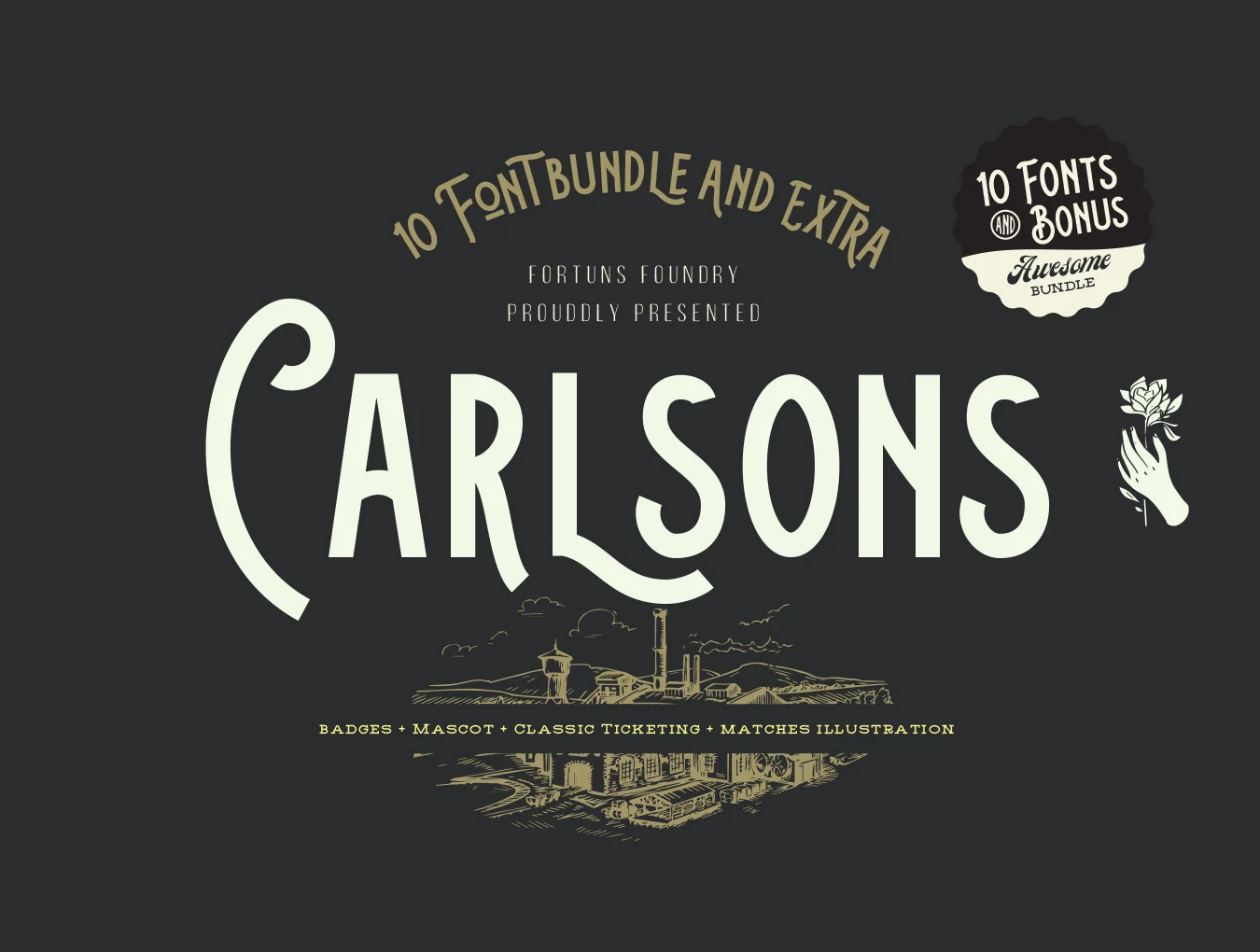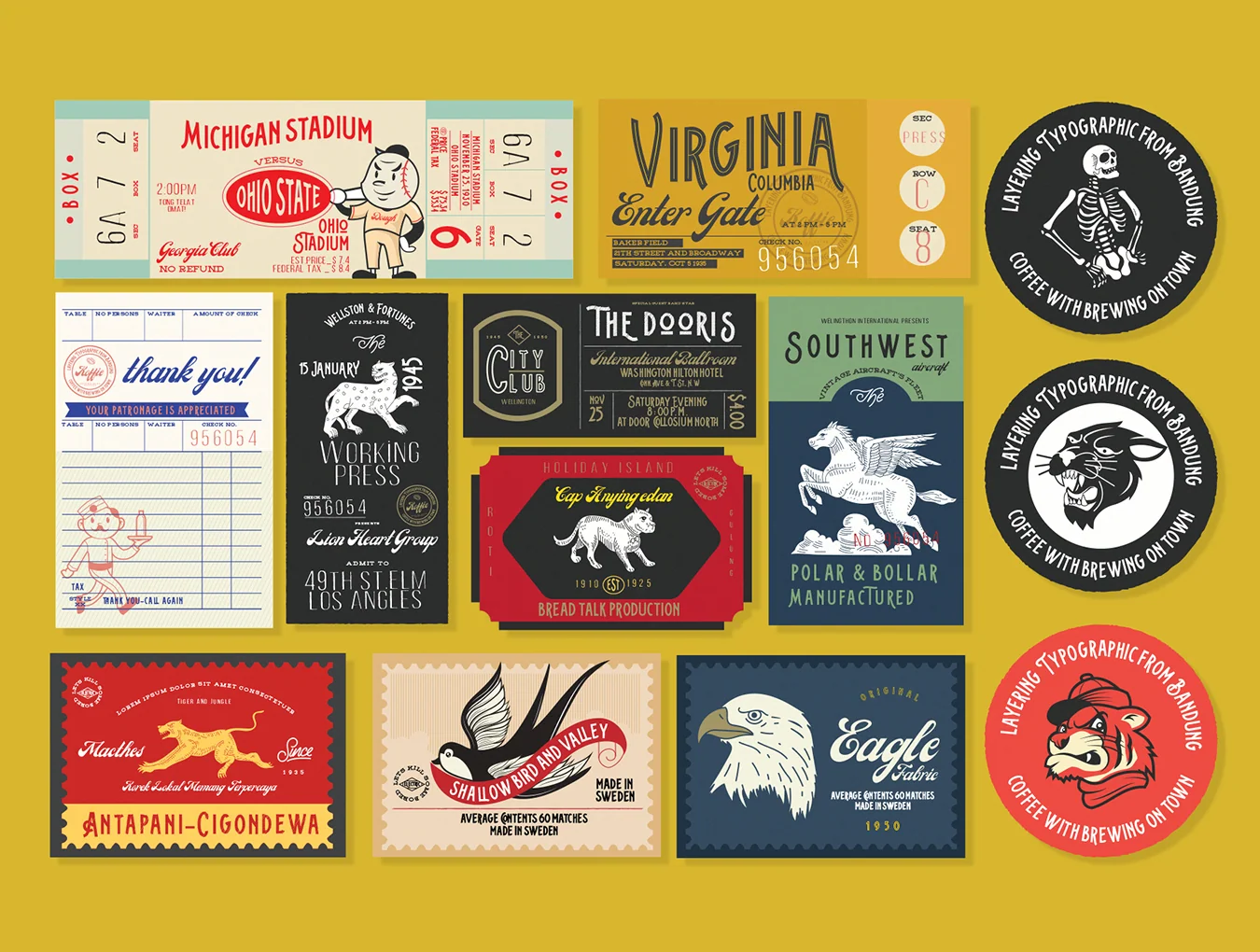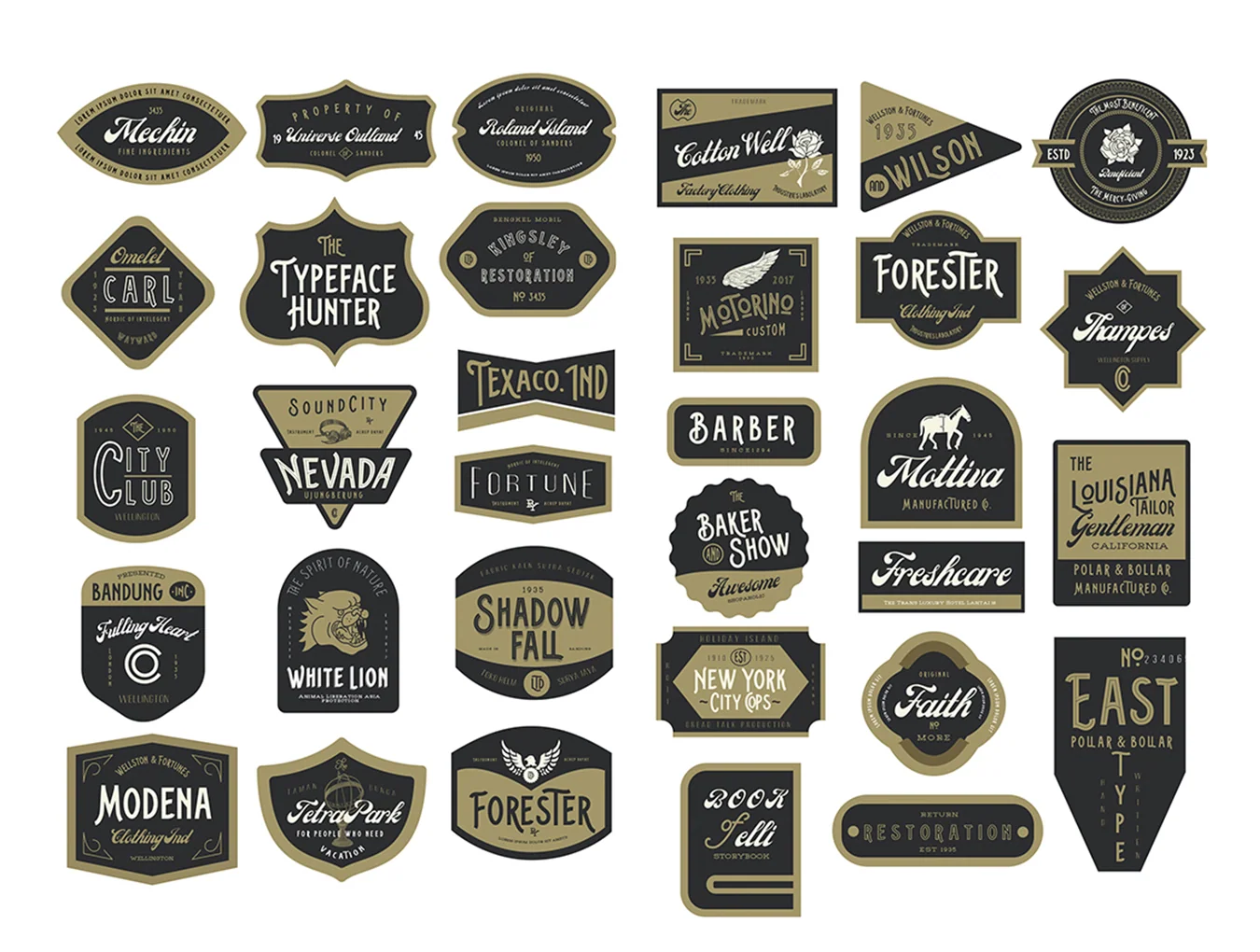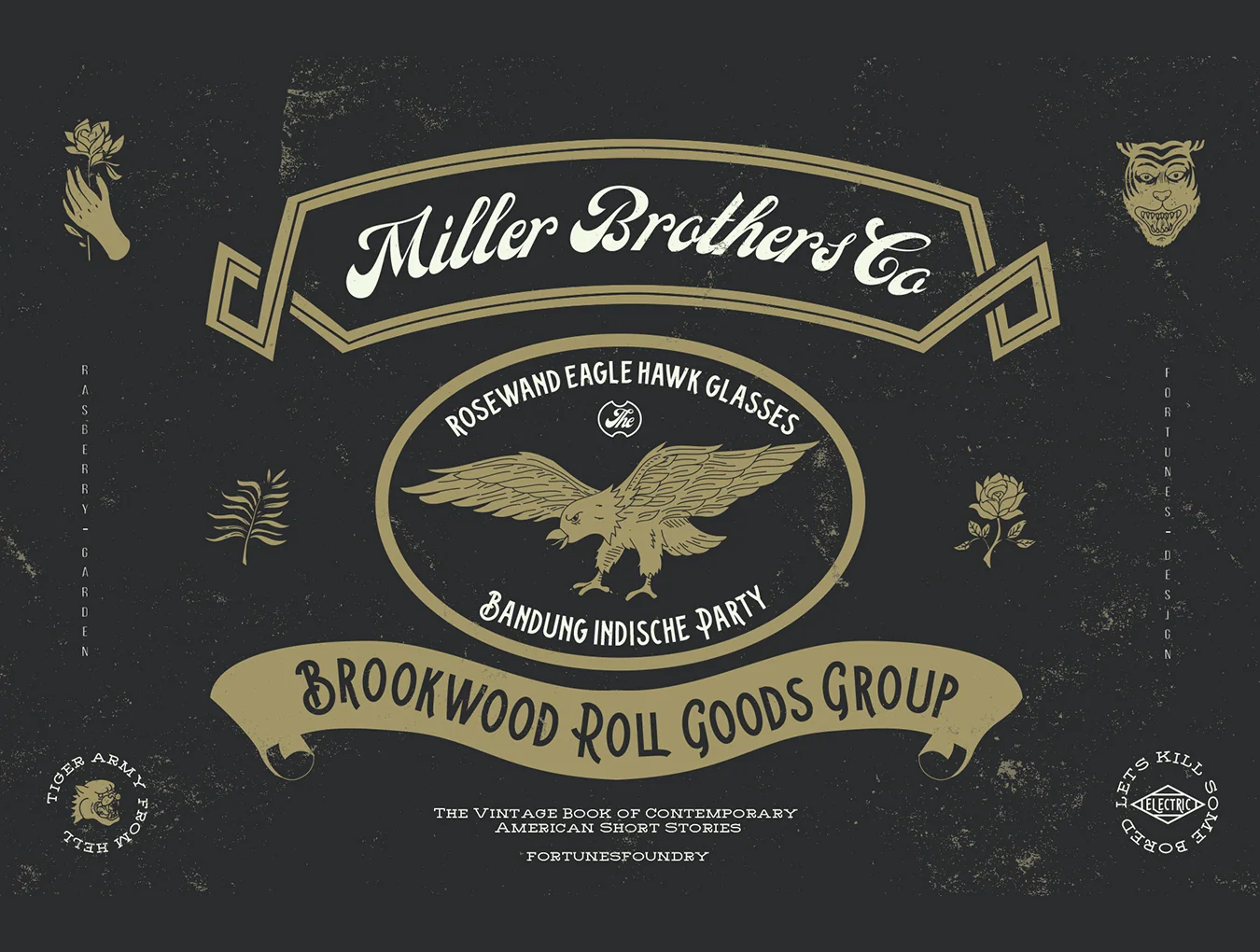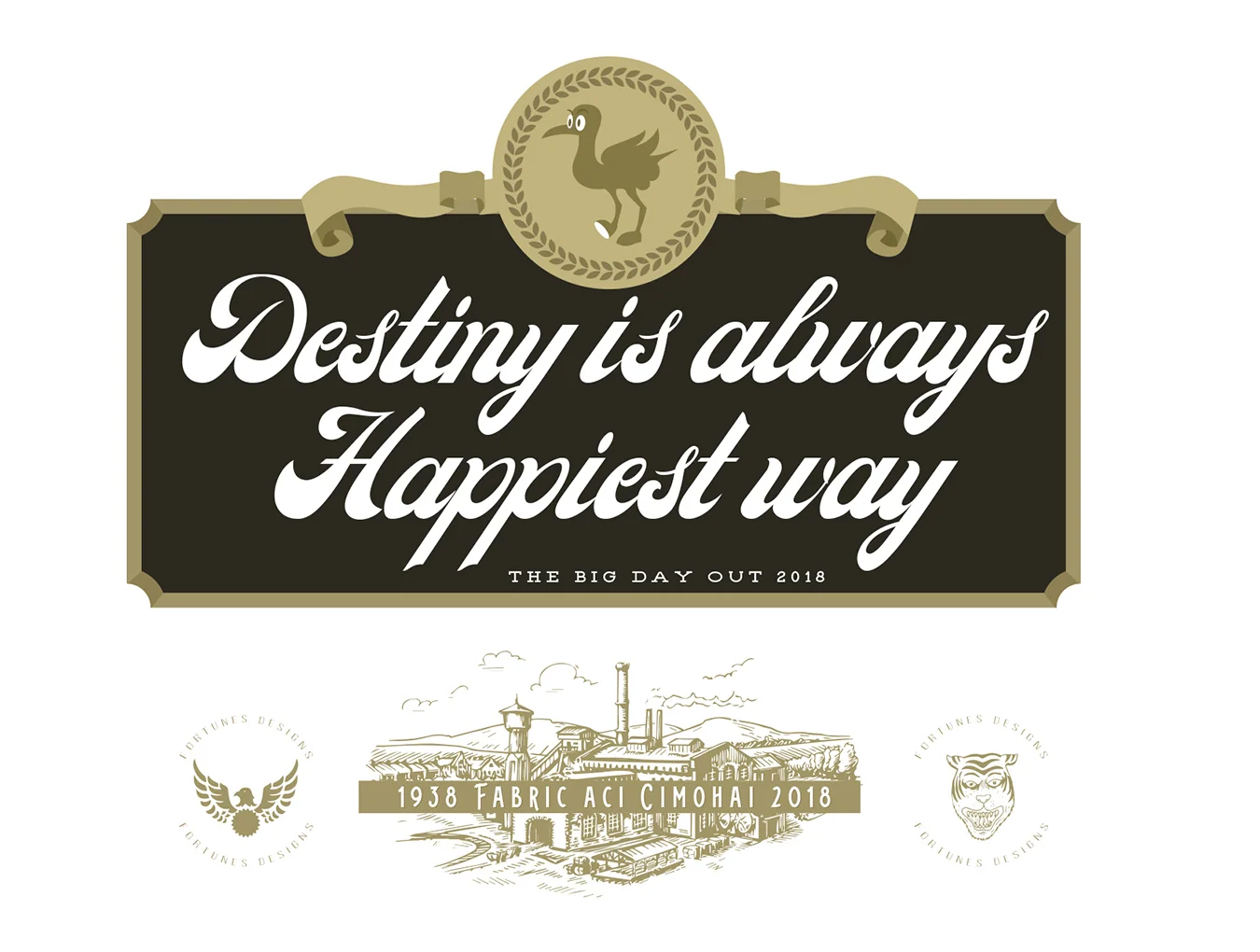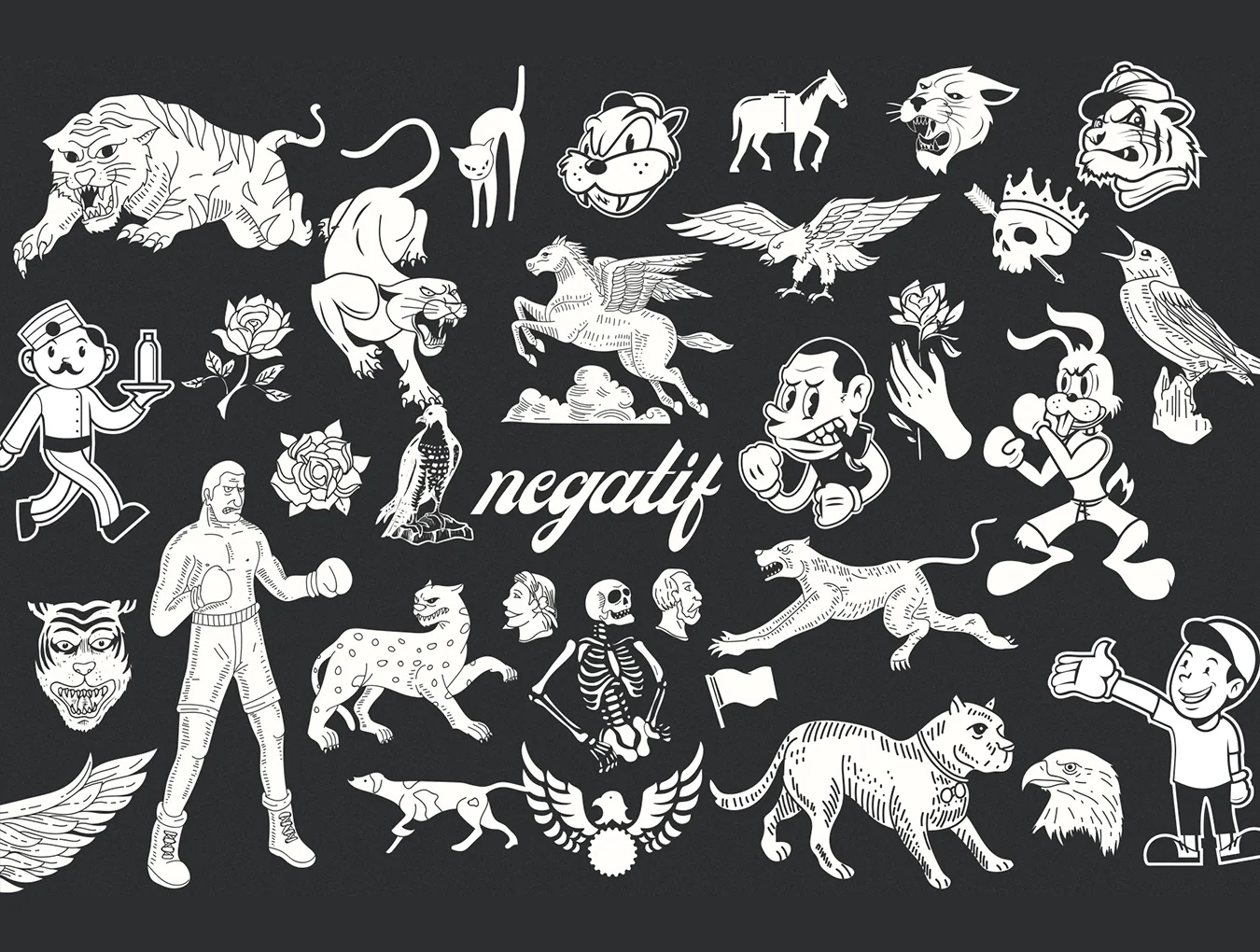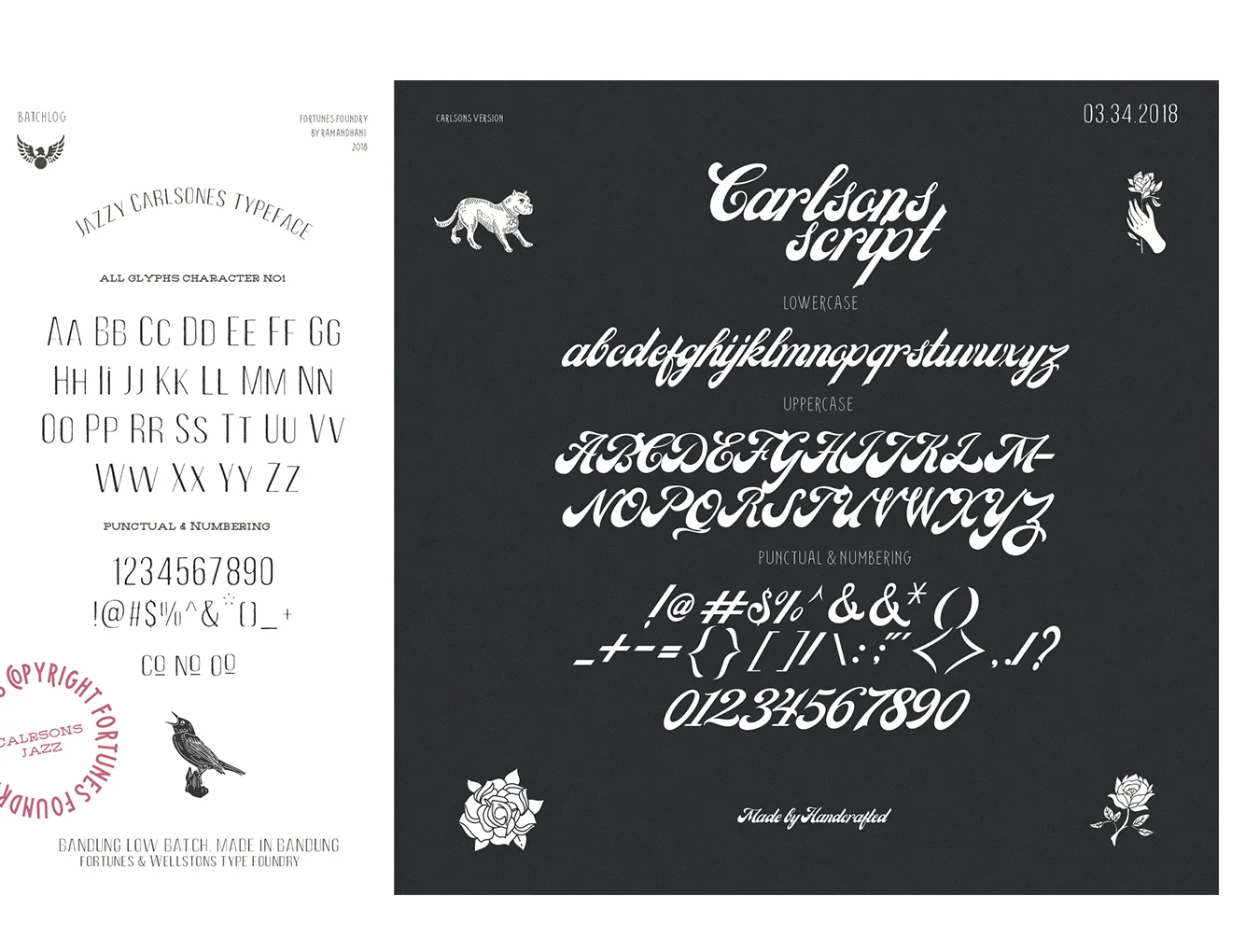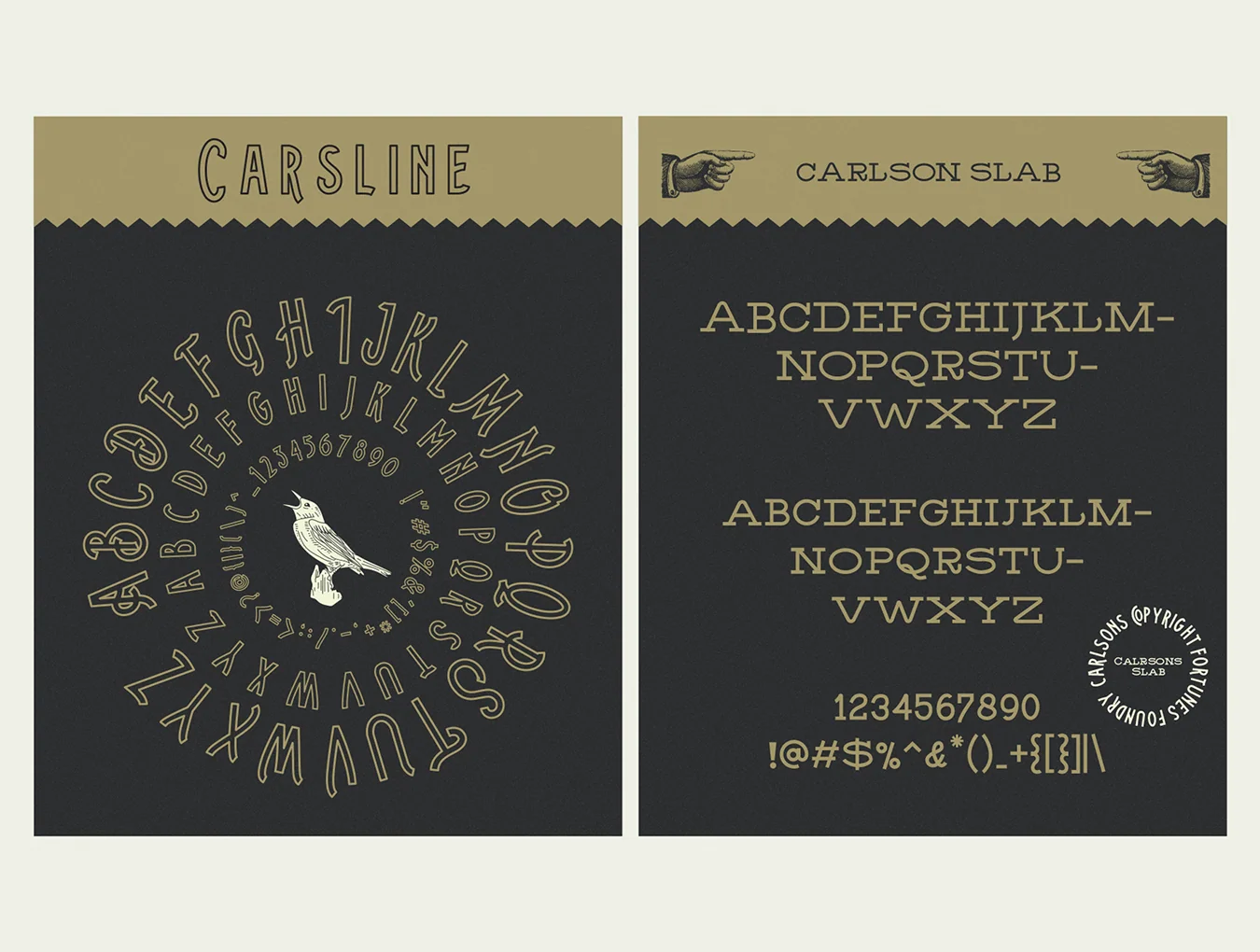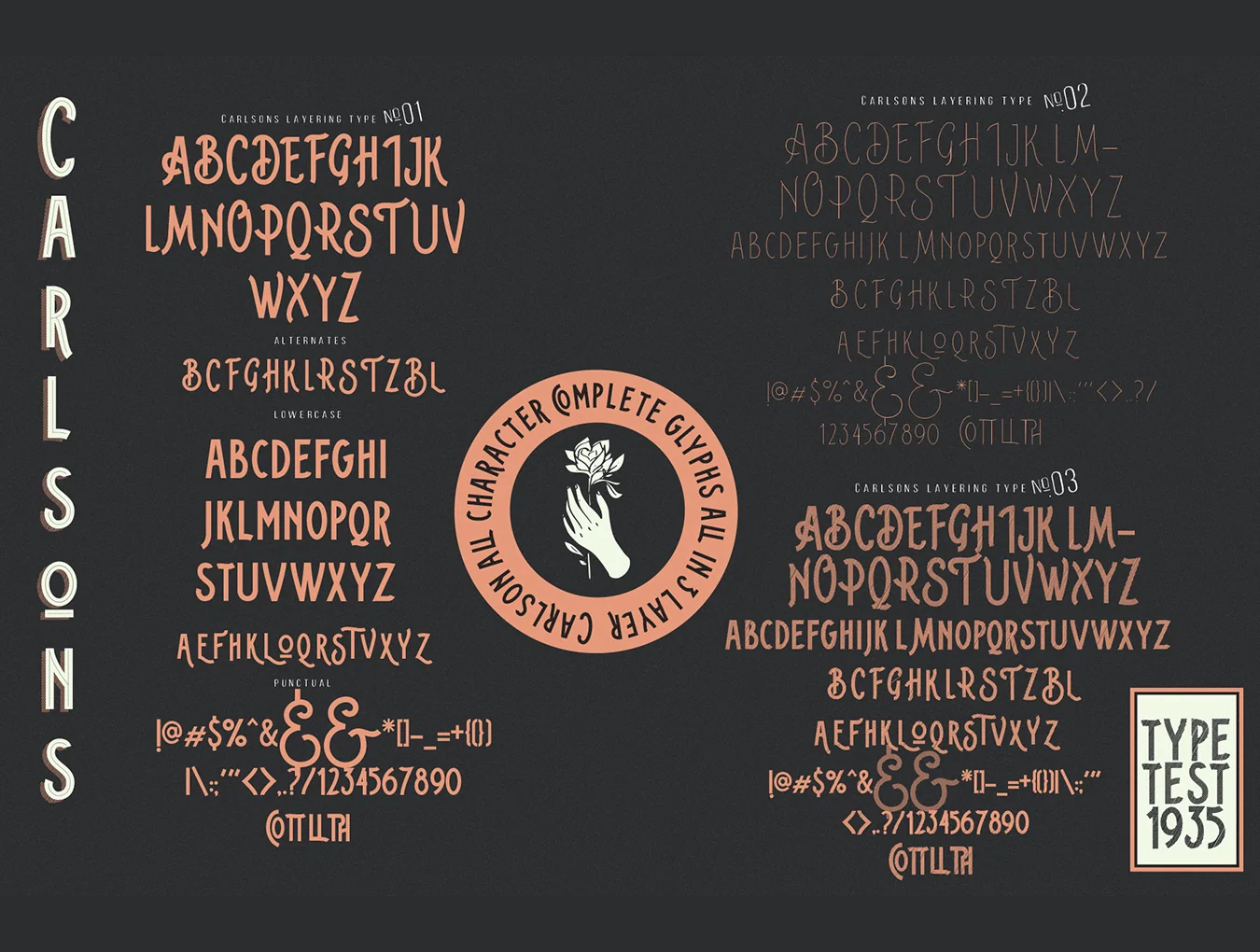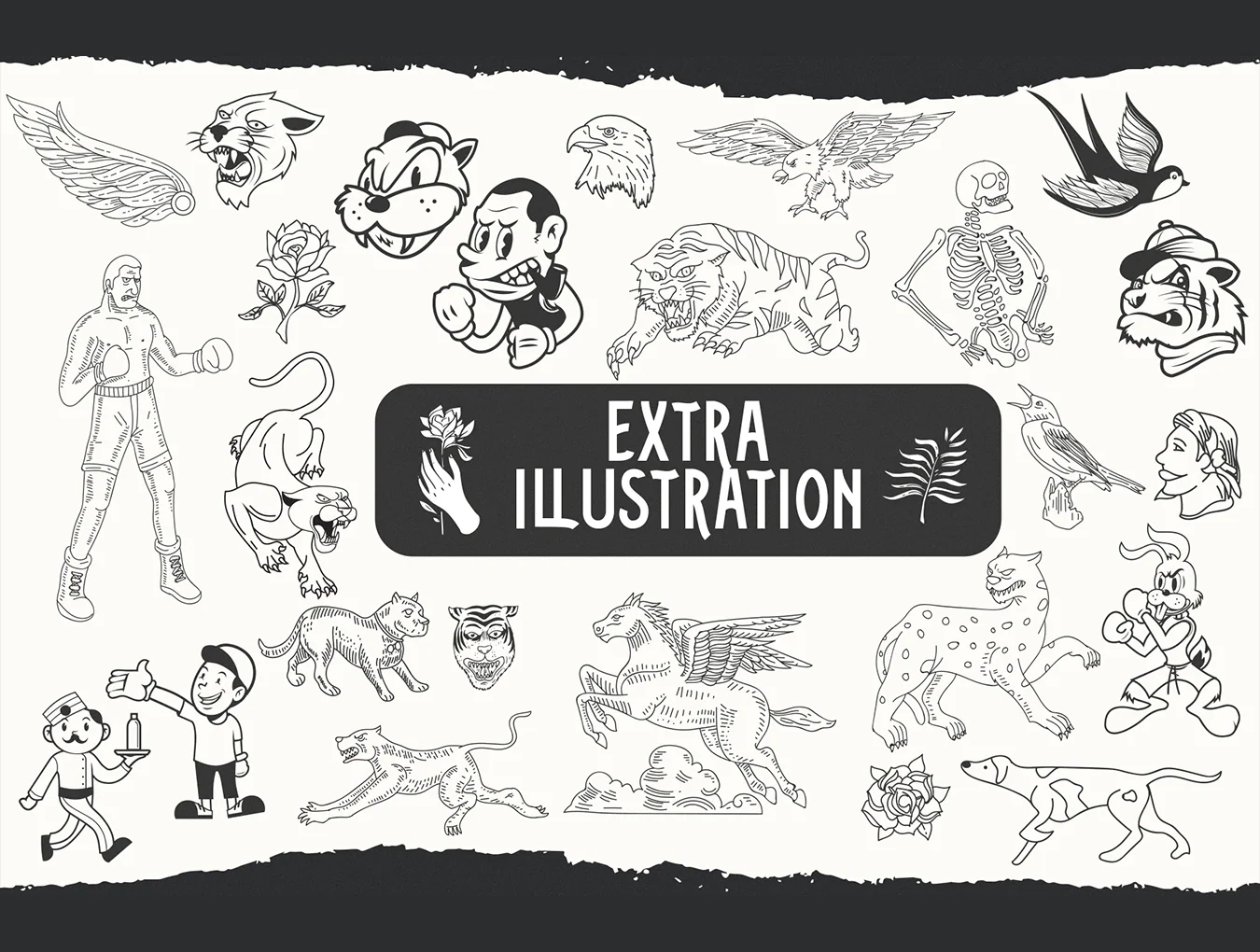
Carlsons Font family
Meet Carlsons: a 10-font OTF family with bonus files.
Meet Carlsons Family + Bonus, a vintage-inspired 10-font typeface set with layered styles, condensed, slab, and script versions. Ideal for headlines, labels, logos, branding, packaging, posters, T-shirts, magazines, and short text. Includes 39 badges, 55+ mascot illustrations, 56 catchwords, and 13 free layouts.